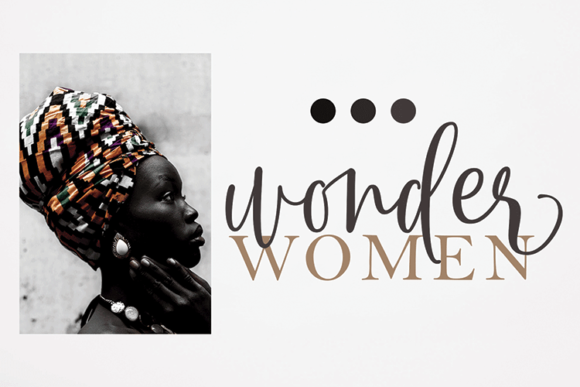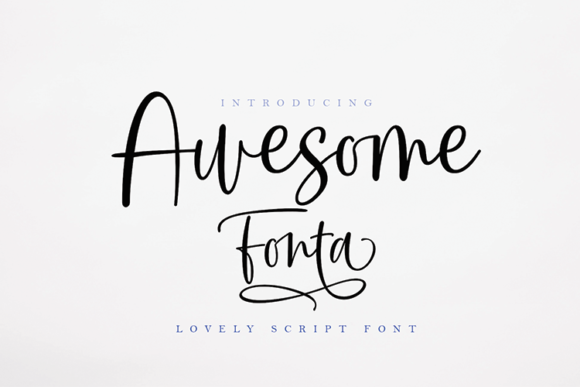
Awesome Duo Script Font
About Awesome Duo Script Font
Awesome Duo Script is a stunning and elegant script font that exudes a contemporary and sophisticated vibe. Inspired by timeless classic calligraphy, this font combines impeccable form with a touch of modernity, making it perfect for a wide range of design projects.
With its sleek and stylish appearance, Awesome Duo Script adds a touch of elegance and class to any design. Whether you’re creating logos, branding materials, invitations, packaging, or any other creative project, this font is sure to make a lasting impression.
One of the notable features of Awesome Duo Script is its PUA encoding. This means that you have easy access to a wide range of glyphs and swashes, allowing you to customize and enhance your designs effortlessly. The extensive character set provides flexibility and versatility, enabling you to create unique and eye-catching typography.
The clean and smooth letterforms of Awesome Duo Script contribute to its legibility and readability, ensuring that your message is conveyed with clarity. The balanced and harmonious strokes give the font a polished and professional look, making it suitable for both digital and print applications.
The contemporary atmosphere of Awesome Duo Script lends itself well to a variety of design styles and themes. Whether you’re going for a minimalist and modern aesthetic or a more elegant and ornate look, this font can adapt and elevate your designs.
Moreover, the impeccable form and attention to detail in Awesome Duo Script make it a true asset to your font library. The carefully crafted curves, flourishes, and ligatures add a touch of sophistication and artistry to your typography, creating a truly memorable visual experience.
In summary, Awesome Duo Script is an elegant script font that combines contemporary style with classic calligraphic influences. With its PUA encoding, you have easy access to a wealth of glyphs and swashes, allowing for endless customization. Whether for branding, invitations, or other design projects, this font brings sophistication and beauty to your creations. Embrace the elegance of Awesome Duo Script and let it elevate your designs to new heights.